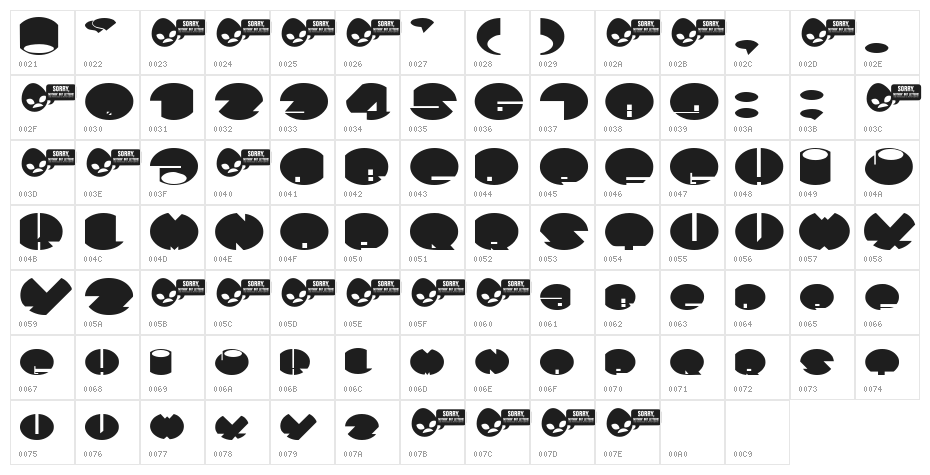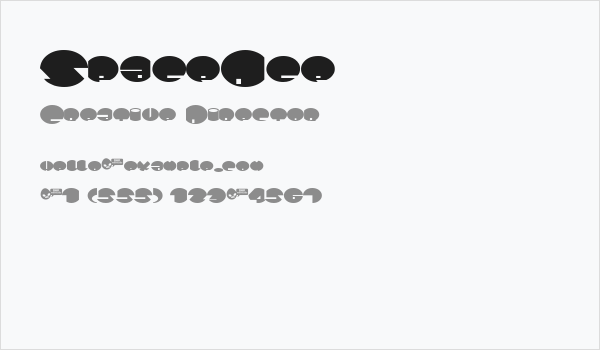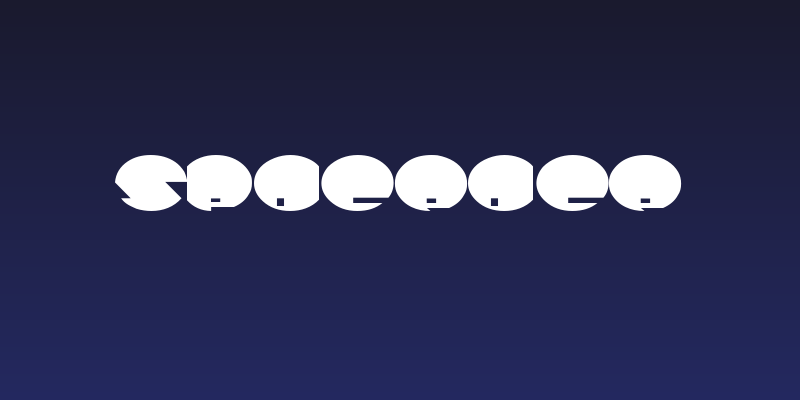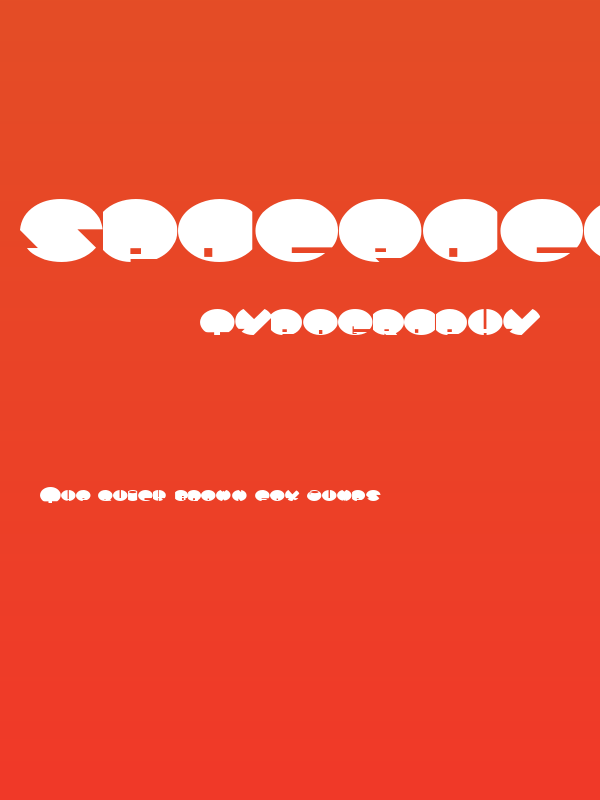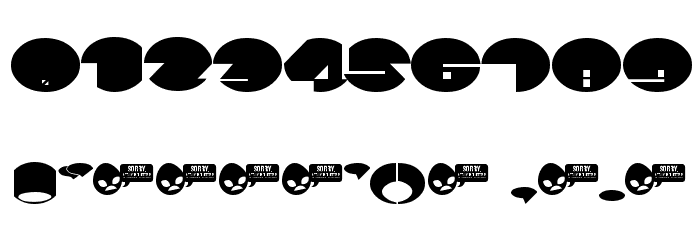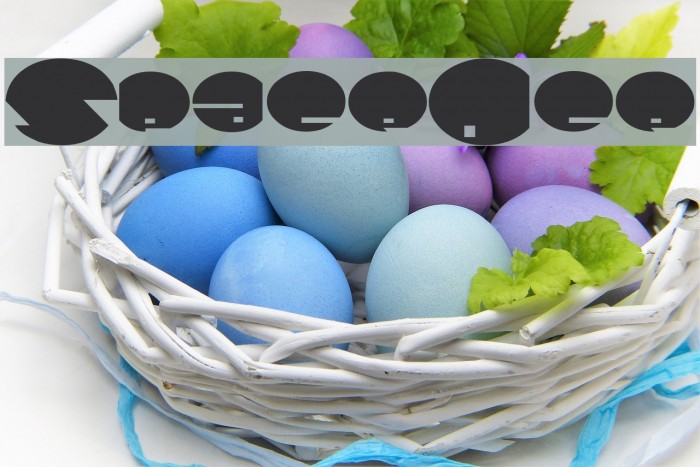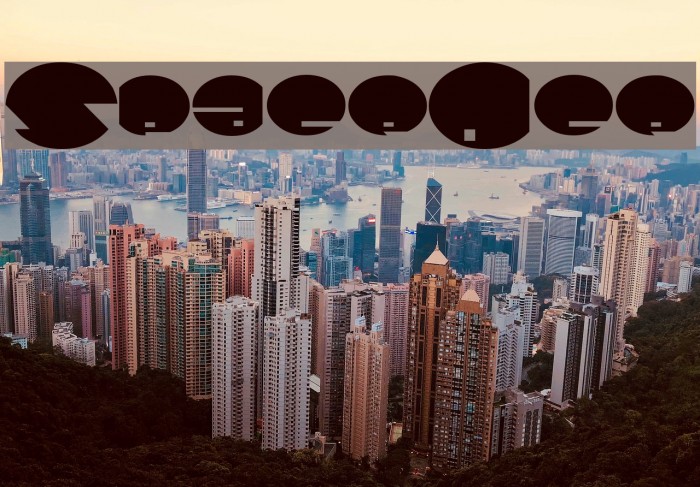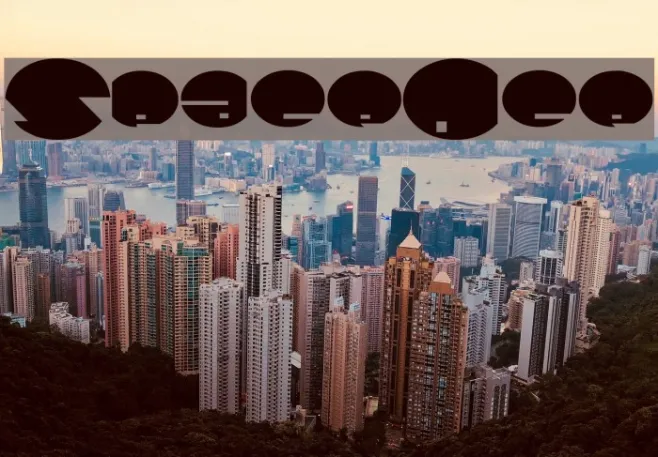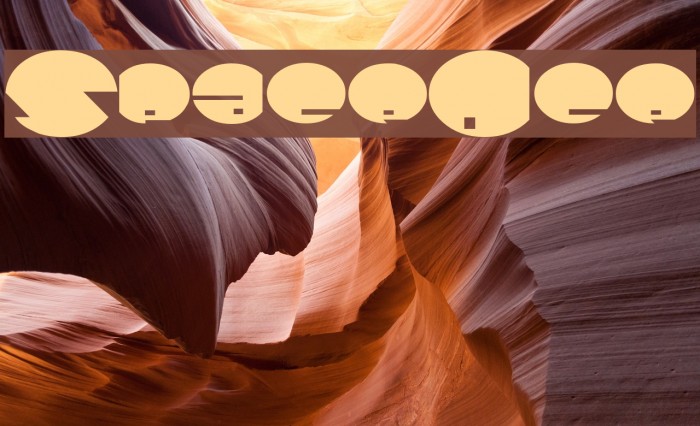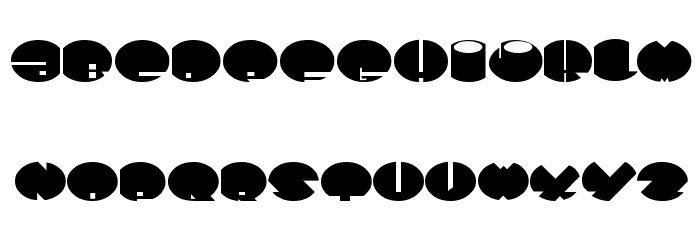
SpaceAce Font
SpaceAce Description
This font features a bold, futuristic design with a distinct geometric style. Each character is crafted with a combination of solid shapes and negative space, creating a unique and visually striking appearance. The letters are predominantly circular, with some incorporating sharp angles and straight lines, giving them a modern and edgy feel. The numbers and special characters maintain this cohesive design, ensuring consistency throughout the typeface. This font is ideal for projects that require a strong visual impact and a contemporary aesthetic.
| Proposed Projects | Ideal for sci-fi themed posters, video game titles, futuristic branding, and technology-related advertisements. |